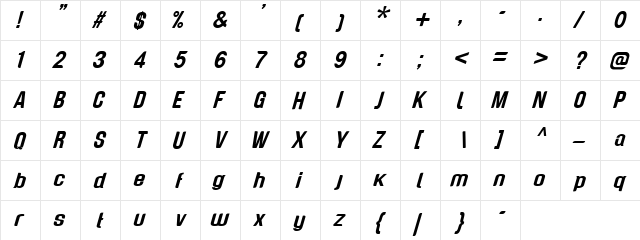
Genghis Khan Med Italic
| Designer | Mahir Huseynov |
Design Context for Genghis Khan Med Typeface
Genghis Khan Med takes a measured approach to typography — its balanced proportions and neutral character make it a reliable workhorse for both digital and print work. Its italic angle brings a sense of urgency and motion to the letterforms.